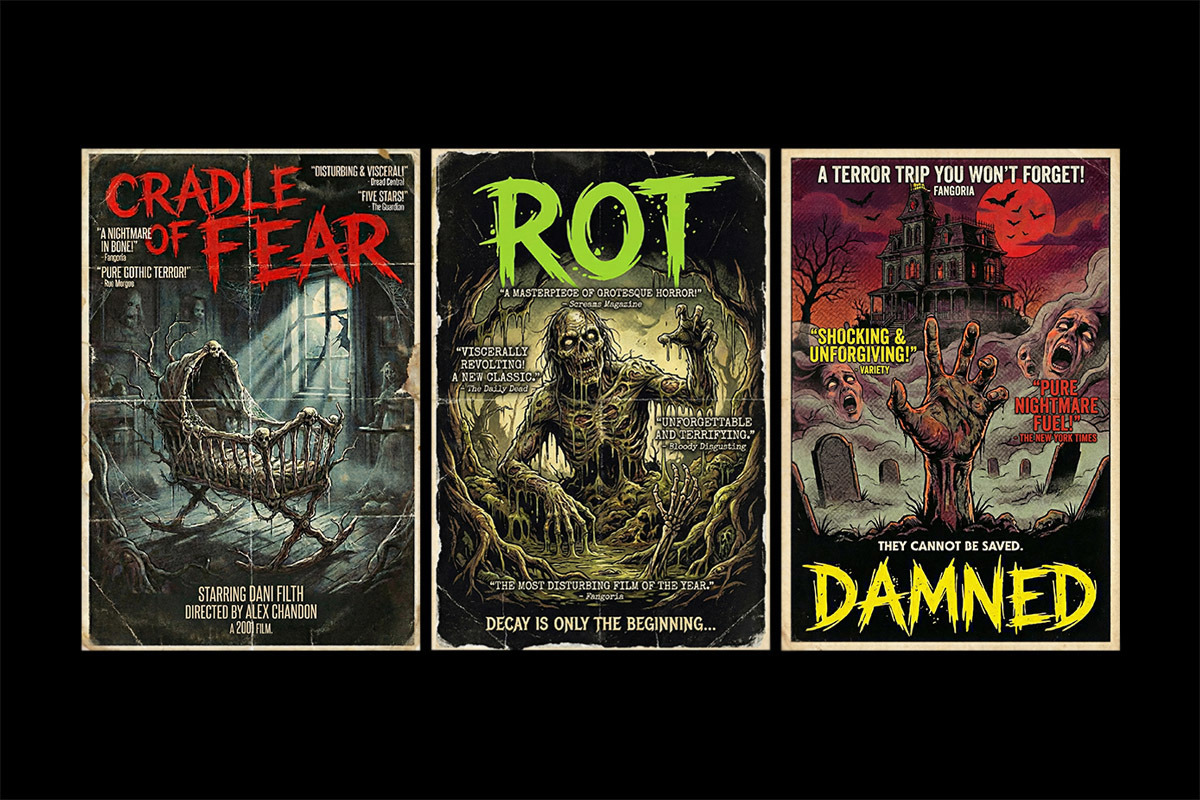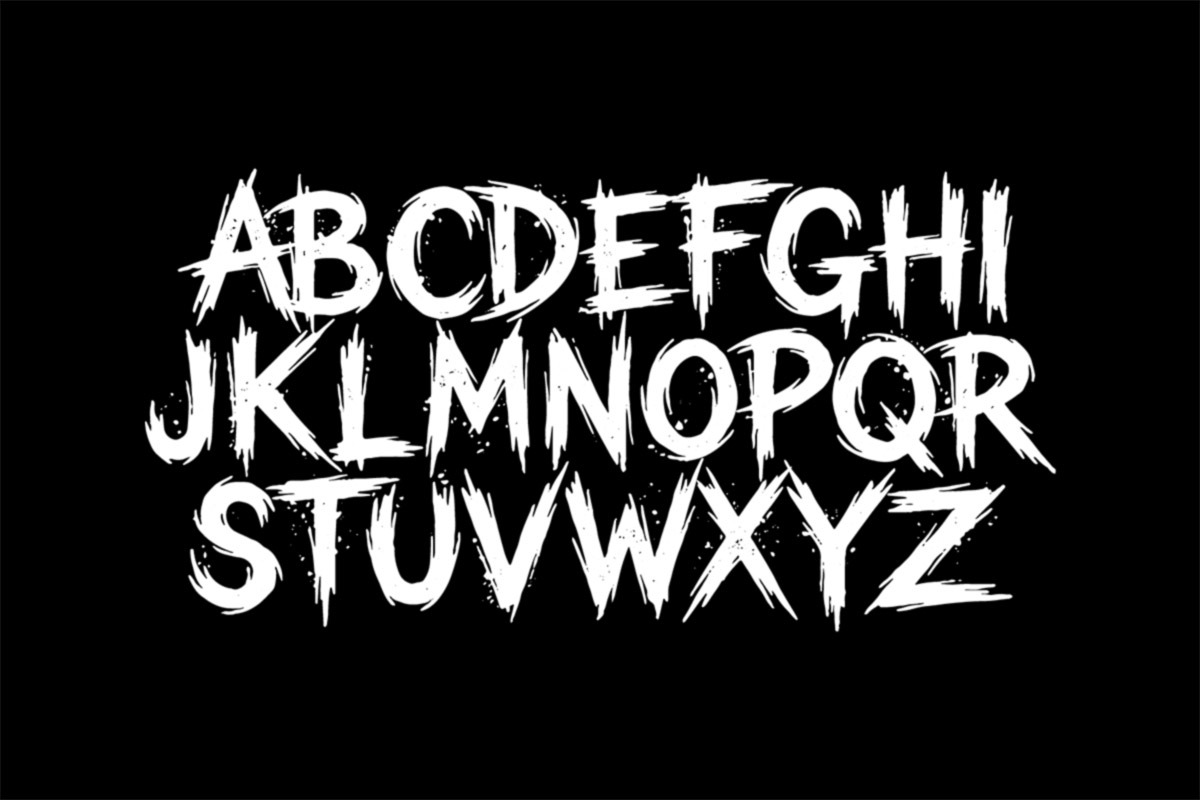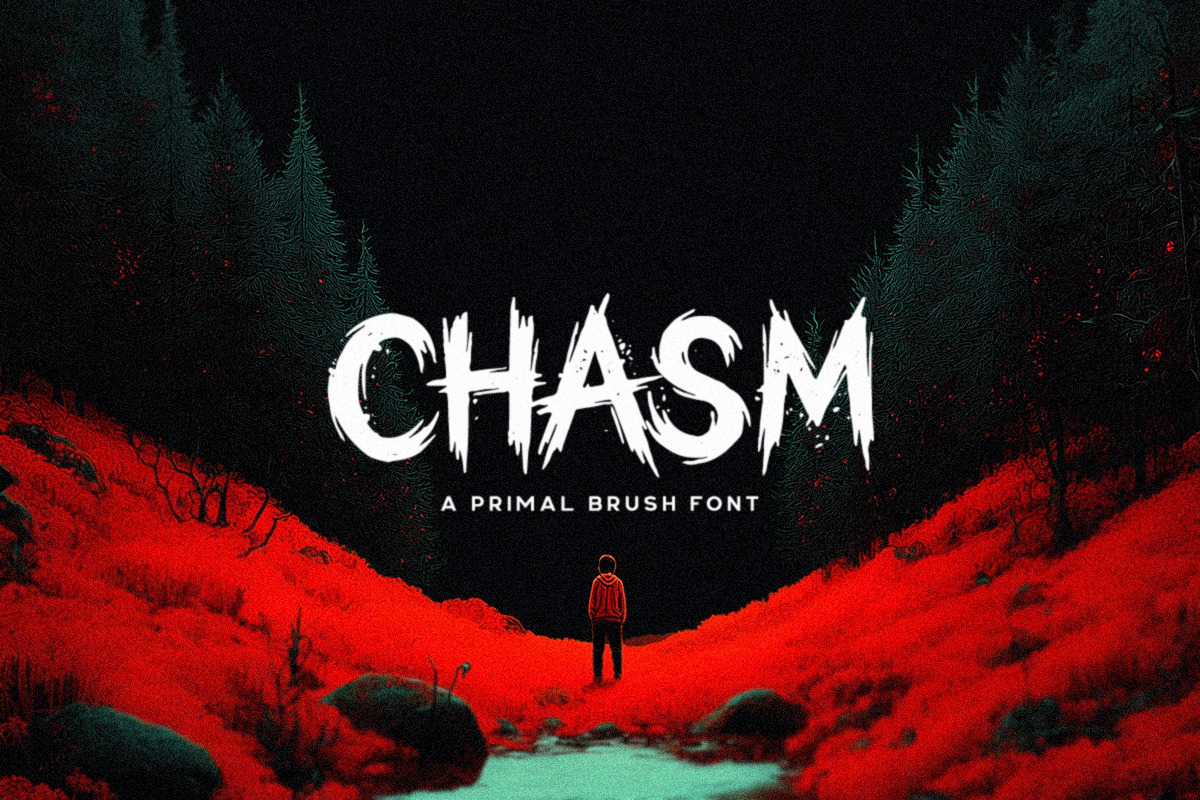
Chasm - Brush Font
CHASM is a brutal primal brush font carved with chaotic strokes, splattered edges, and an unrestrained sense of dread. Inspired by underground horror posters, grindhouse aesthetics, and feral hand-painted lettering, CHASM brings raw violence and intensity to any design. Perfect for horror movie titles, metal artwork, book covers, game graphics, and anything that demands a savage, distressed, hand-brushed look.